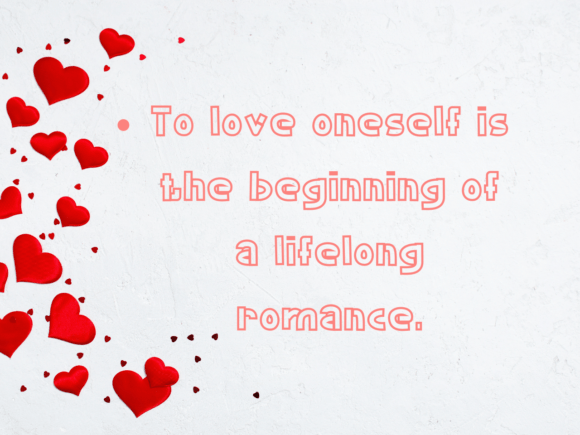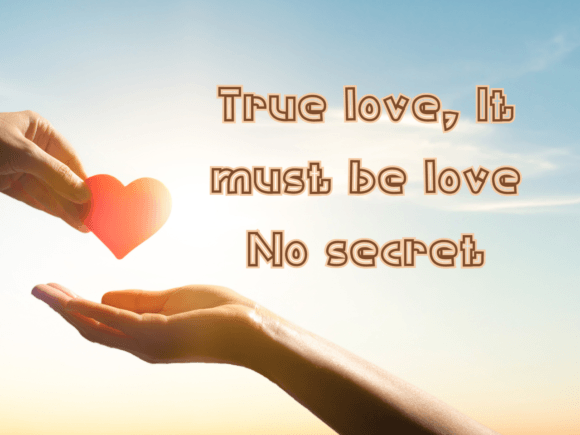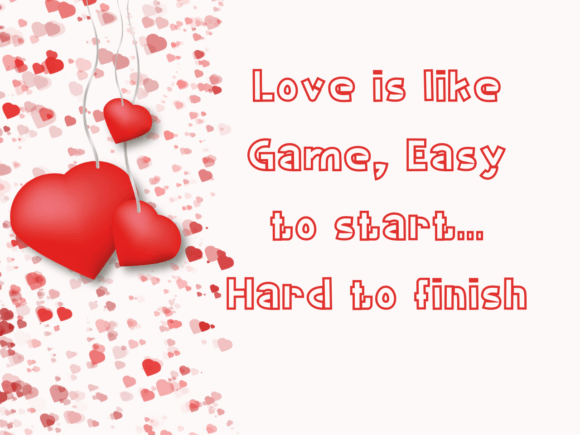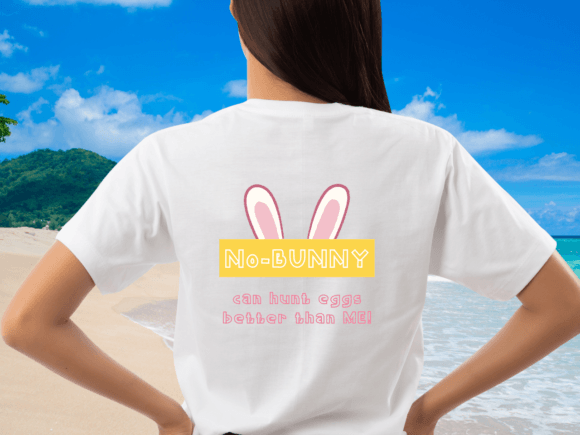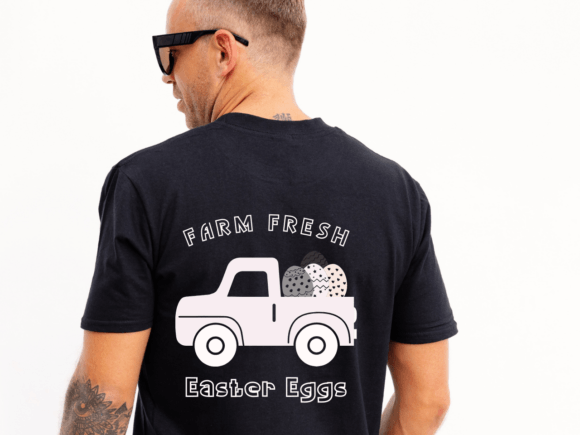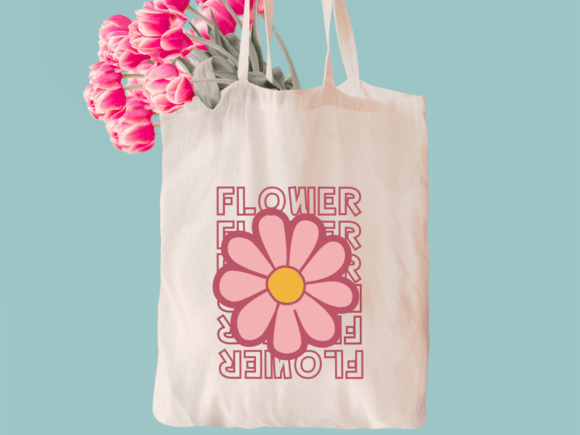
Introduction to Shadi Font
Shadi is a fun and playful display font.
Add it to your creative projects and enjoy the results .
Key Features of Shadi Font
Why Choose Shadi Font?
Shadi Font offers exceptional quality and versatility, making it a valuable addition to your design toolkit. Whether you’re creating for personal projects or commercial use, Shadi Font delivers professional results.